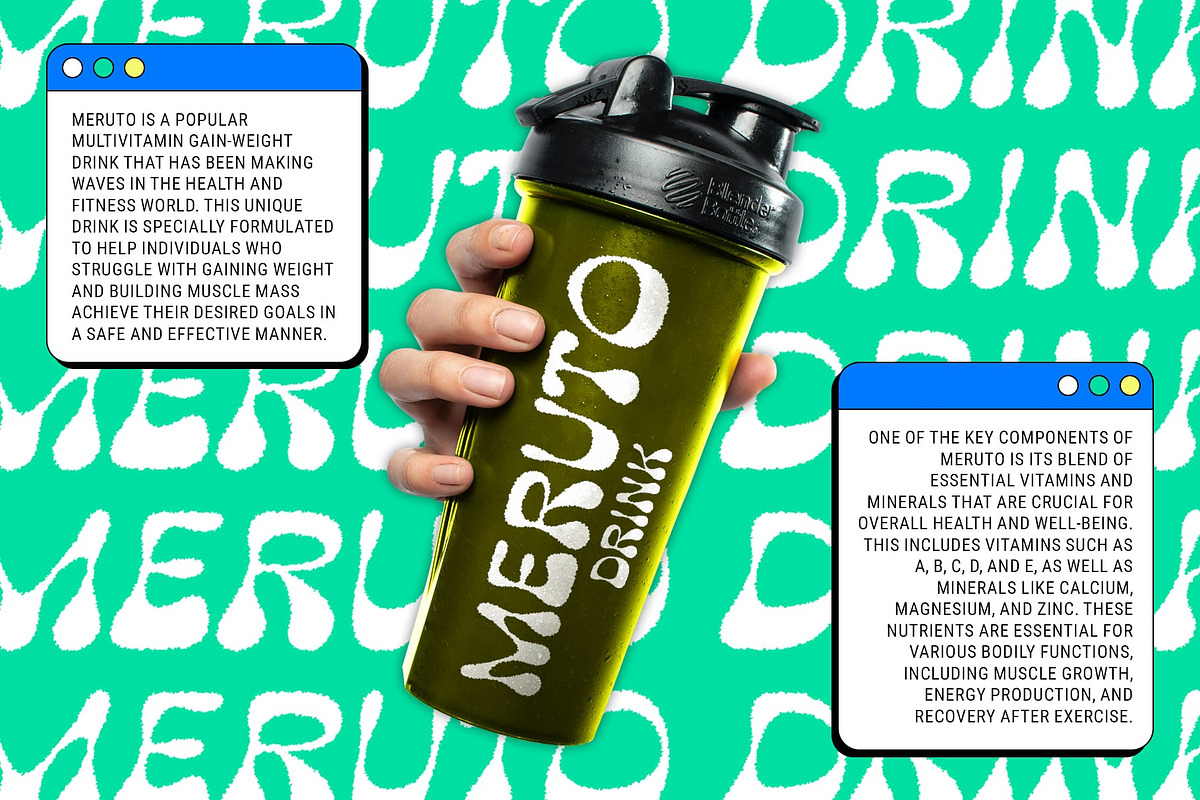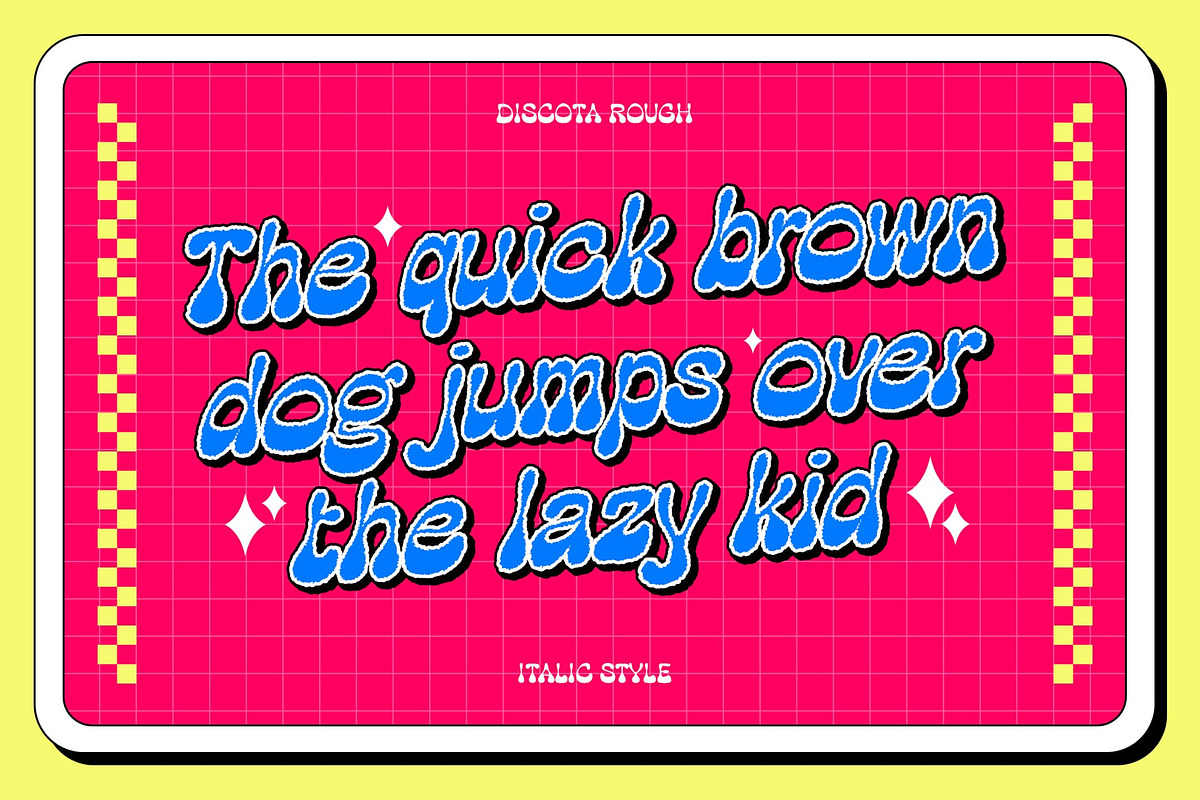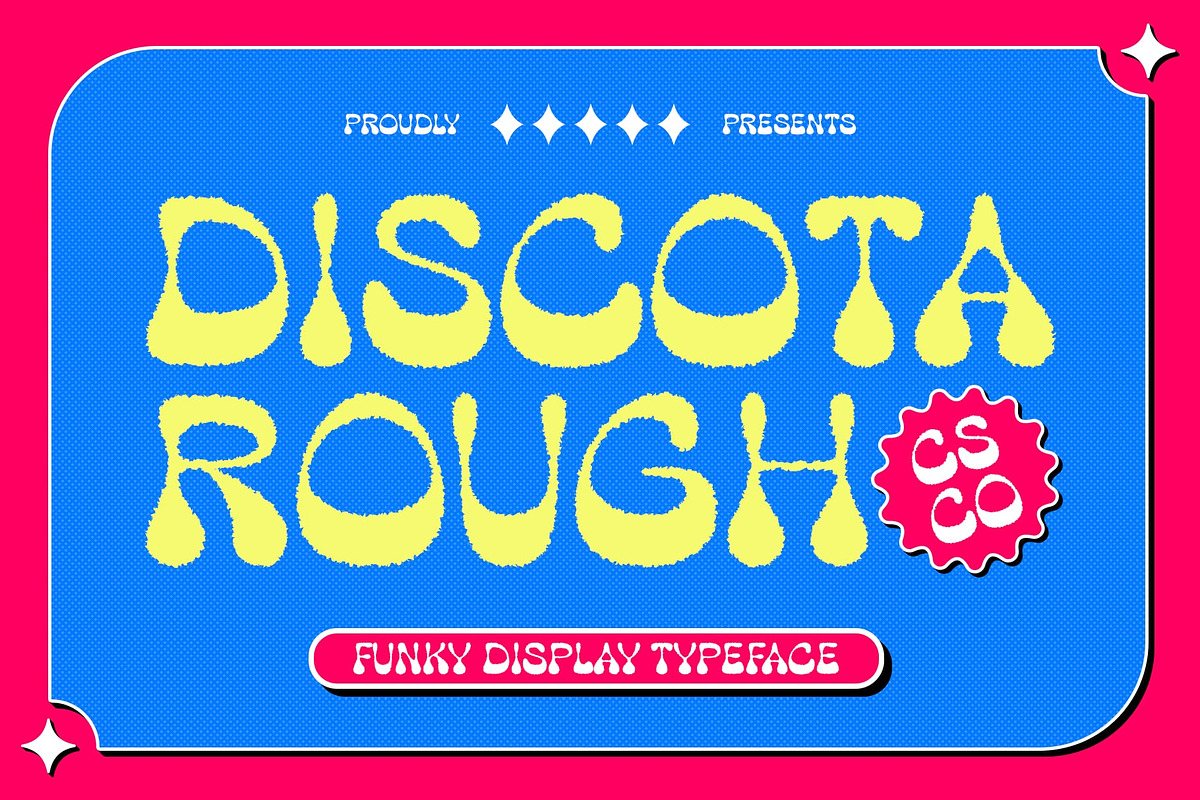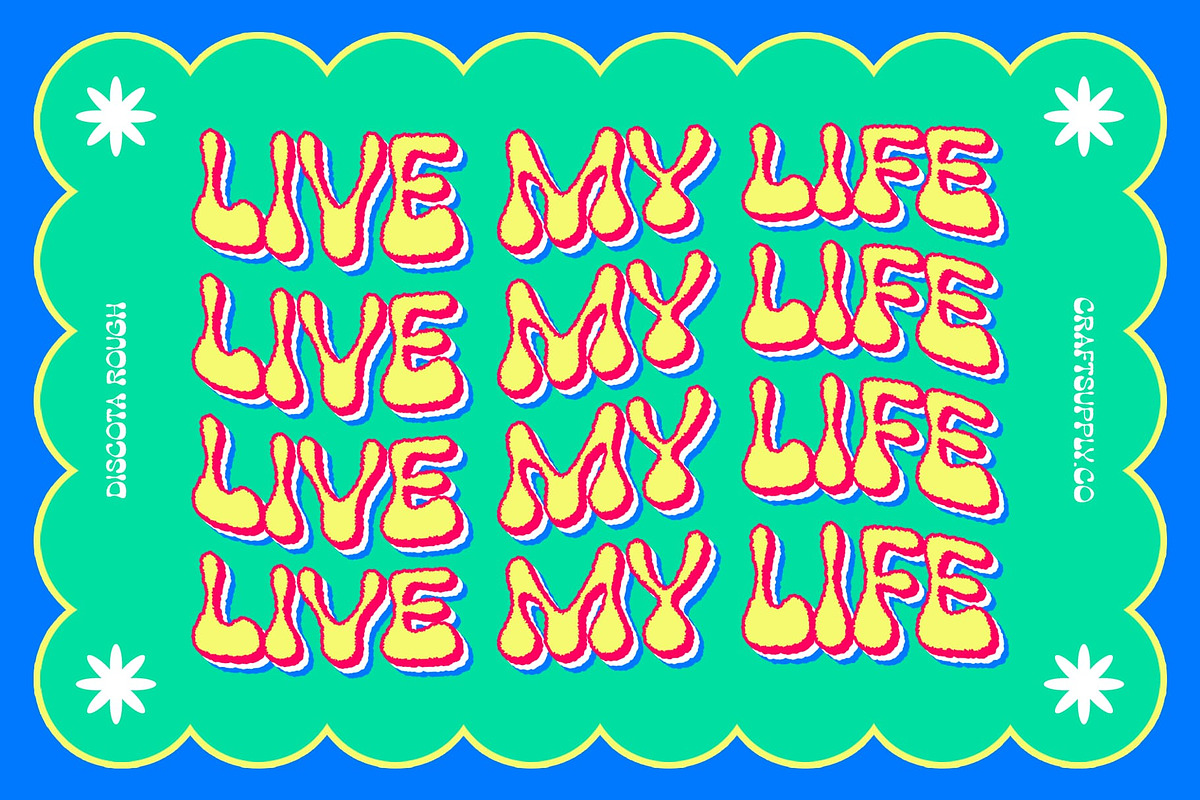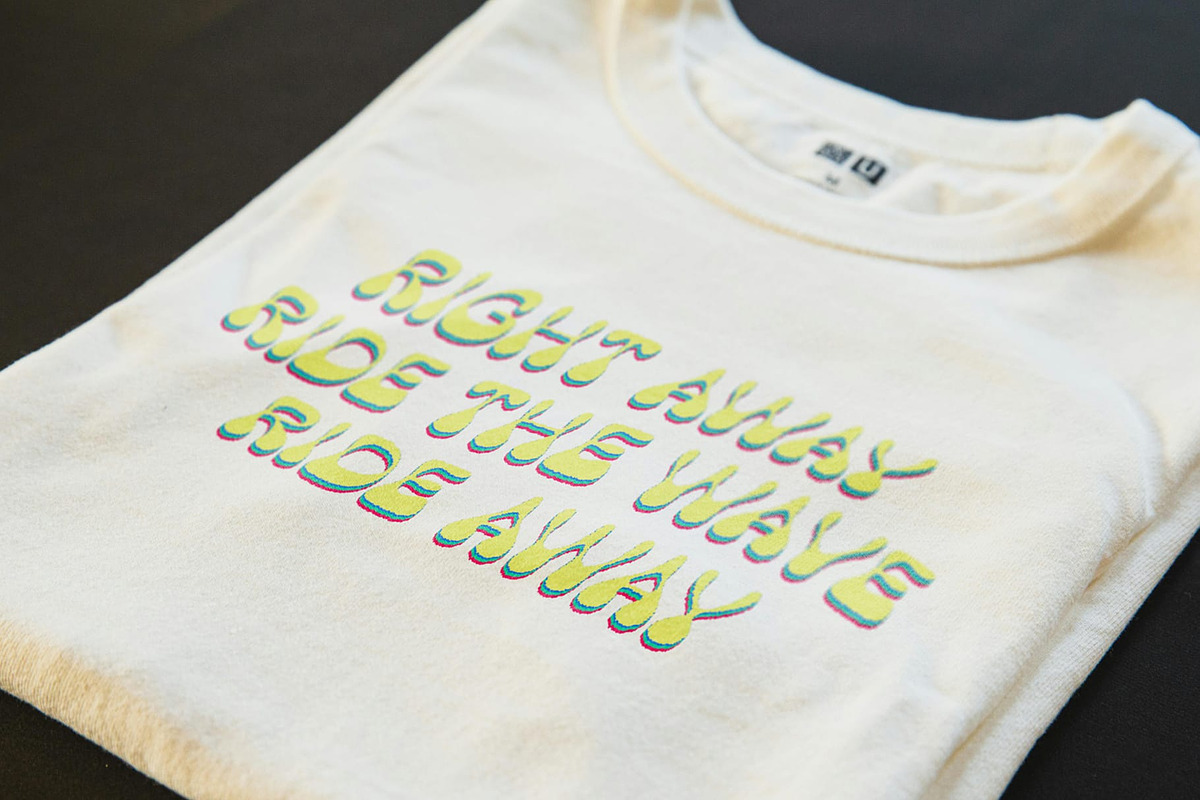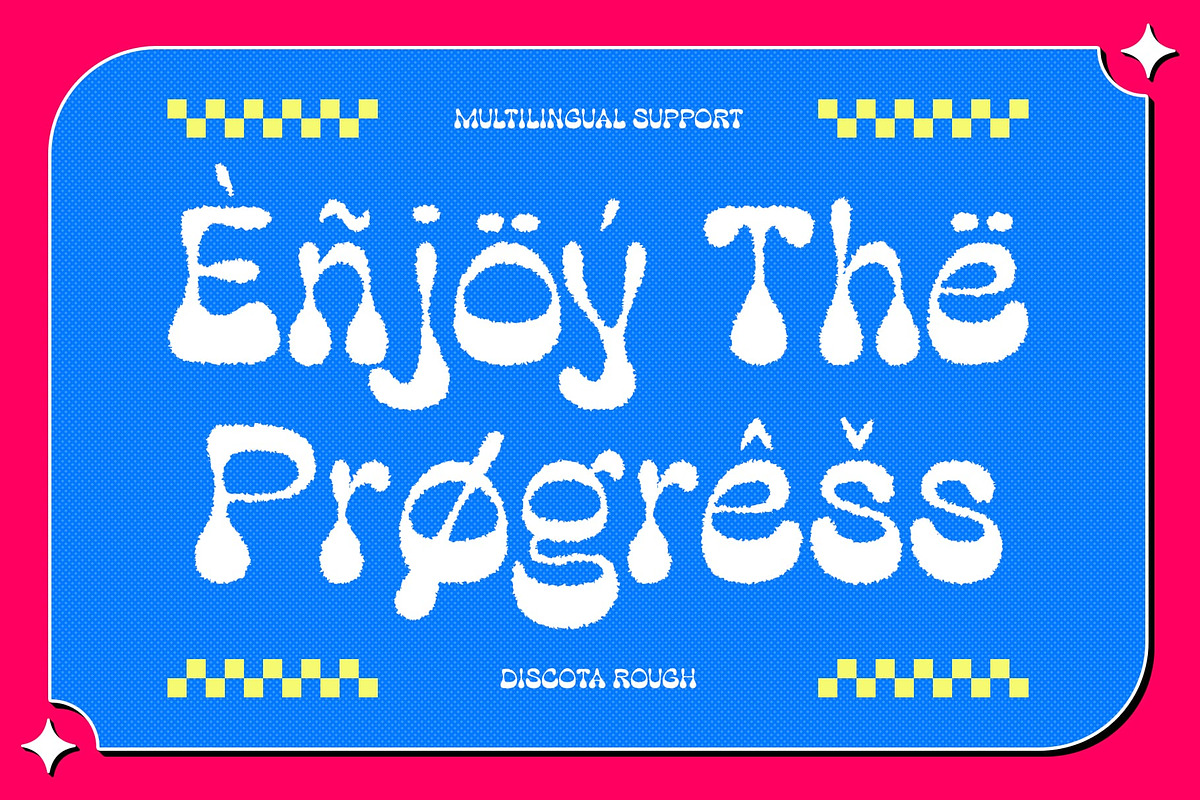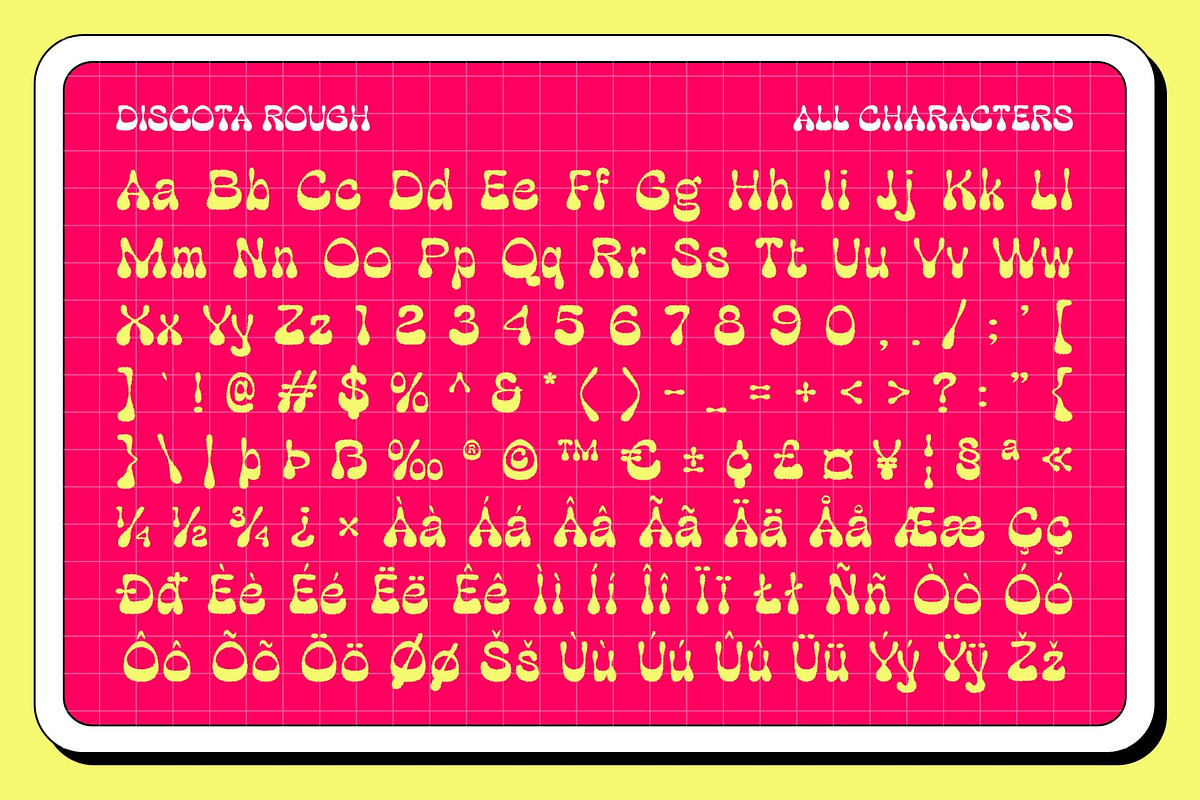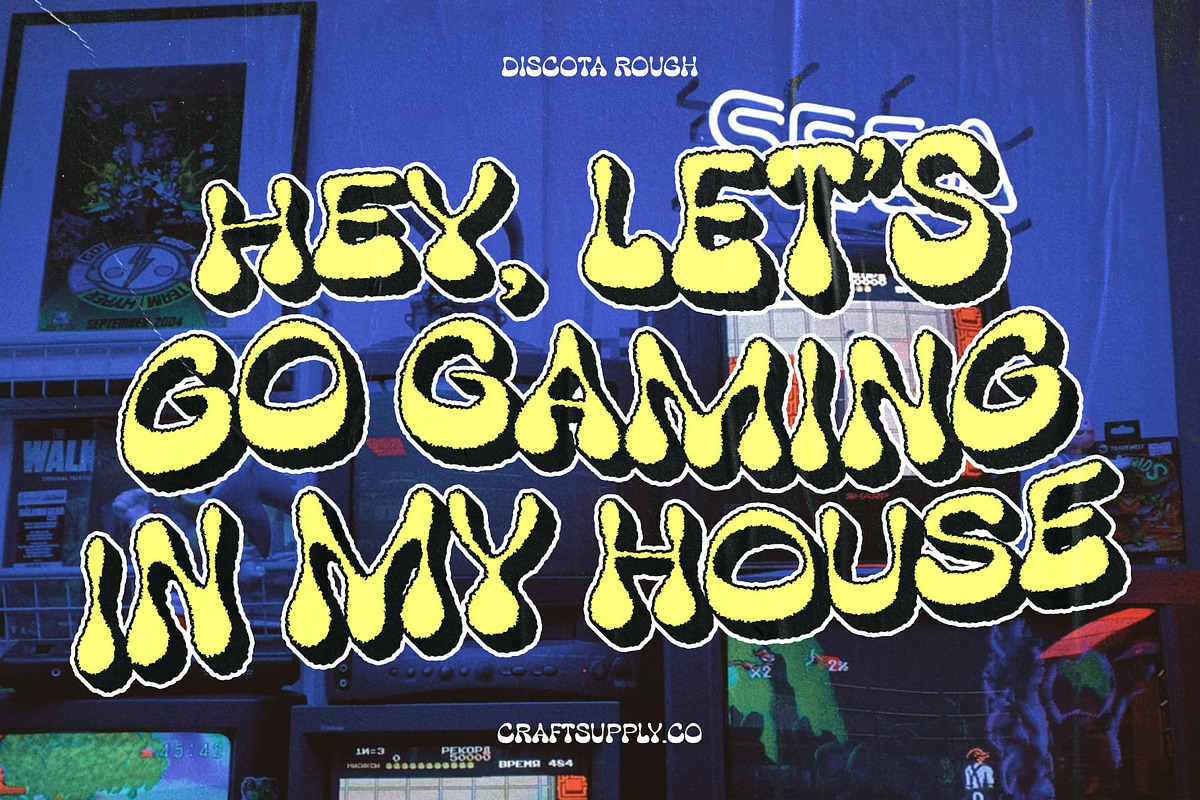
Discota Rough
Discota Rough: Unleash Creativity with Retro Vibes
Psychedelic Design with Funky Bubble Shapes
Discota Rough is a display font that features a psychedelic design, funky bubble retro shapes, and a rough effect, making it perfect for designs aiming to showcase creativity and uniqueness. Its bold and unconventional style adds a dynamic flair to any project.
Distinctive Retro Vibe
Combining psychedelic elements with funky bubble shapes, Discota Rough evokes a distinctive retro vibe that captivates attention. The font’s playful and energetic design brings a nostalgic yet modern twist to your designs.
Intriguing Rough Texture
Moreover, the rough effect on Discota Rough’s letters adds an intriguing texture, enhancing its non-conventional and memorable look. This texture creates depth and visual interest, ensuring your designs stand out in any creative context.
Ideal for Creative Projects
Designed for creatives, Discota Rough is ideal for posters, album covers, and branding materials that require a bold and expressive font. Its unique blend of psychedelic design, funky shapes, and rough texture ensures your designs make a lasting impression.
Conclusion
In conclusion, Discota Rough is a display font that combines psychedelic elements with funky bubble shapes and a distinctive retro vibe. With its rough effect adding texture and depth, this font is perfect for designs aiming to showcase creativity and uniqueness, making it a memorable choice for any creative project.